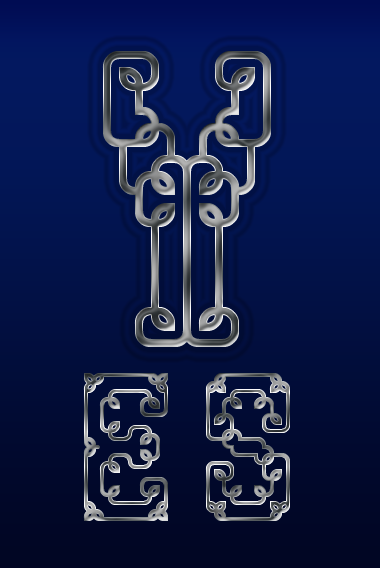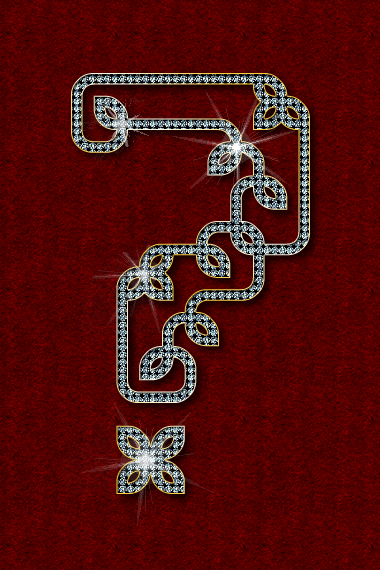
Splendid! I think this idea would perform especially well with an ultra-hairline weight.
Wonderful, juicy, beautiful and amiable font, master!
Simple decorative font truly shines on fantastic bling-bling demo pic. 10/10
Do you know? You're a genius. This is such a delight. Great samples too.
Richly decorative. You mentioned before in one of my fonts that it reminded you of Marian Bantjes. I didn't know who she was then, but thanks for that introduction. This creation of yours, in turn, reminds me of this work of Marian, coincidentally uploaded by Stewf.
Niiiiiiice!
Woweee!! What a delight to the eye. As ever, your samples show the creative possibilities. 10/10